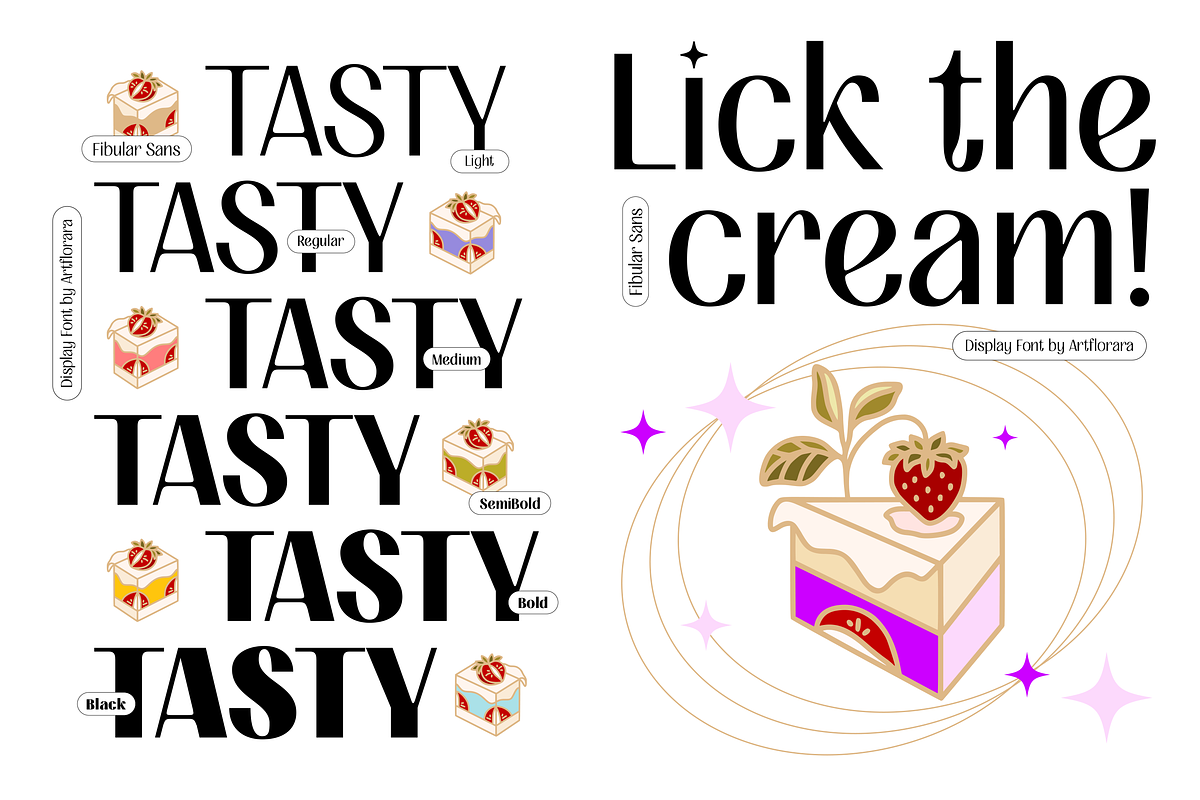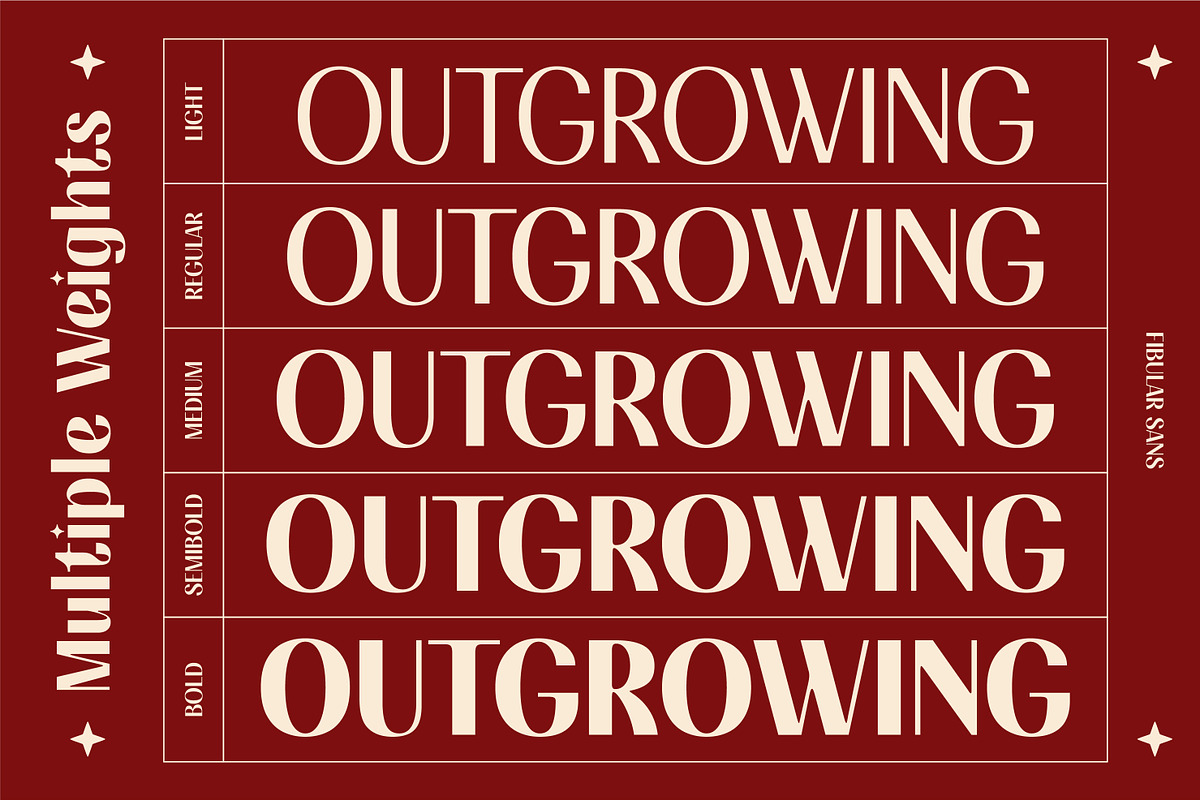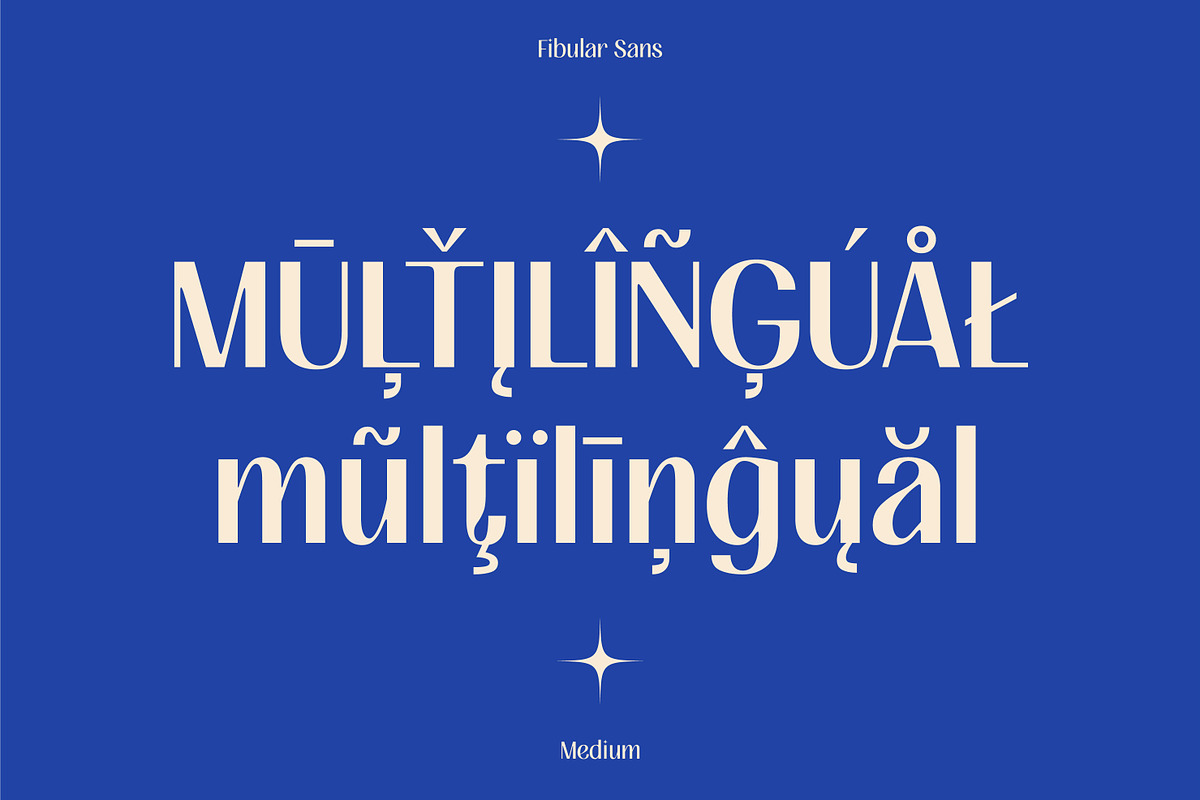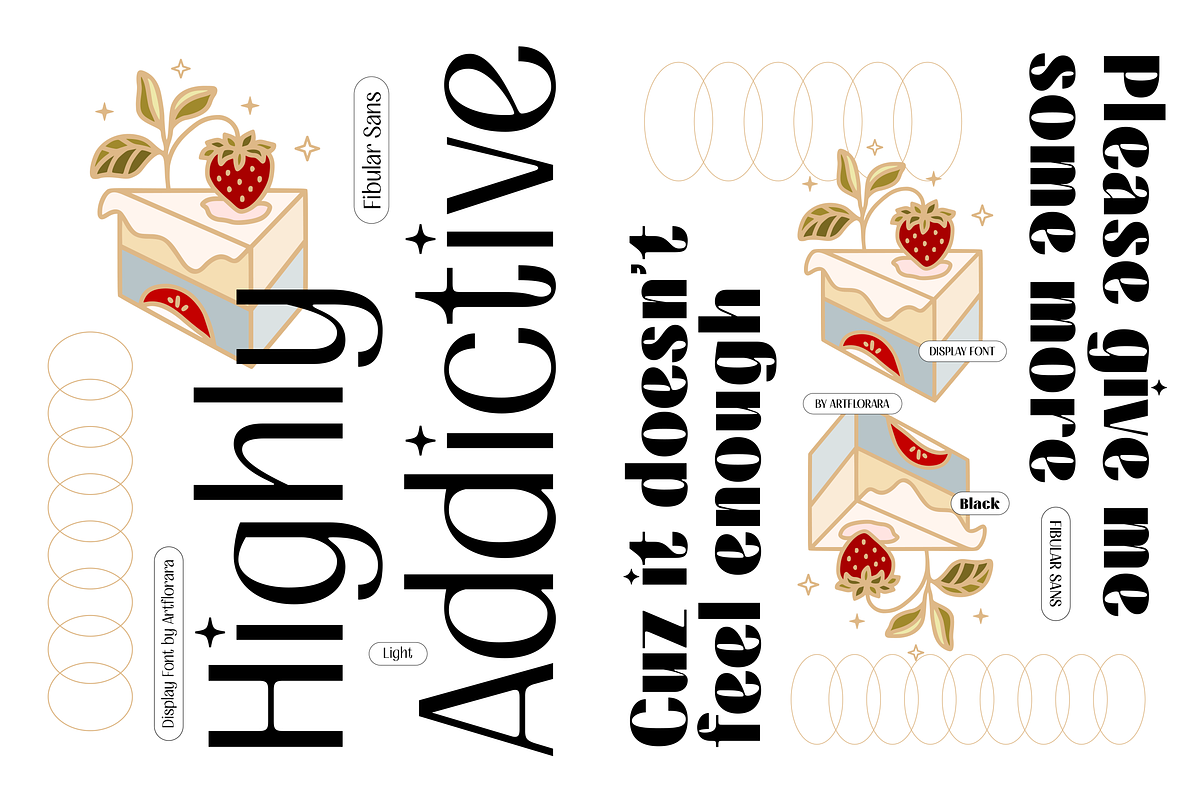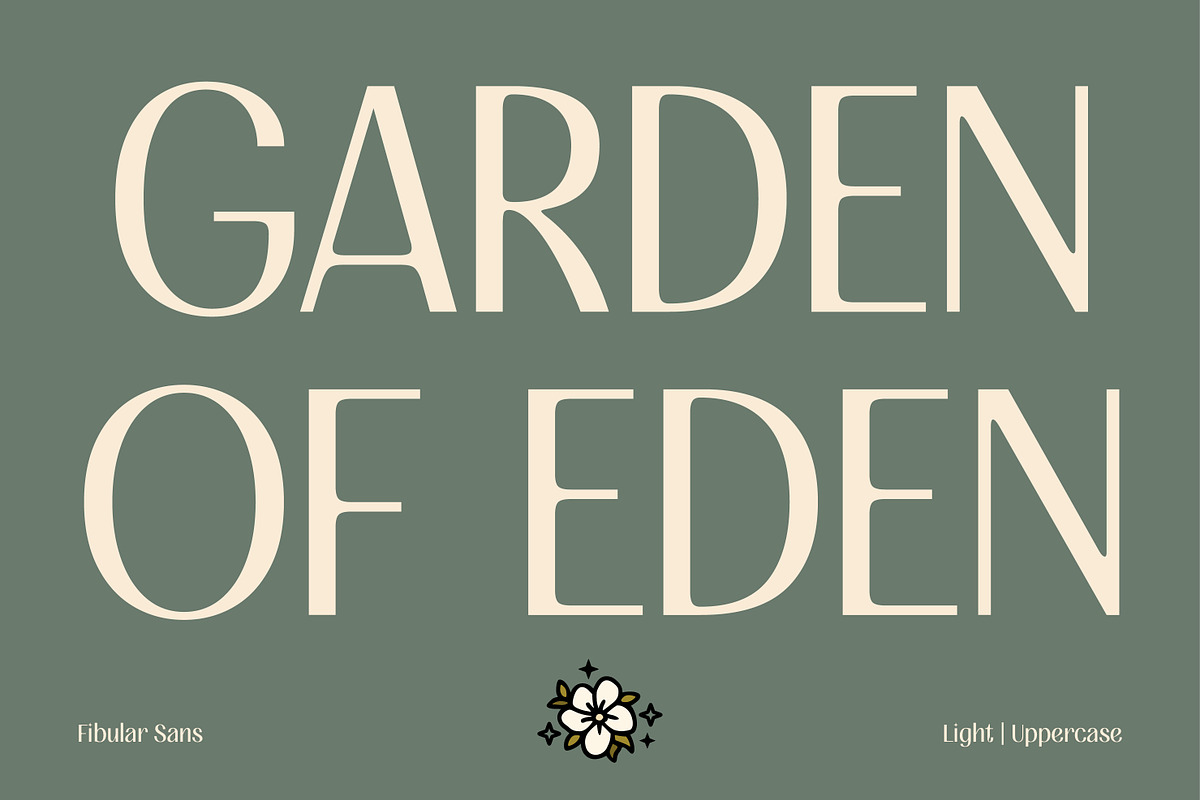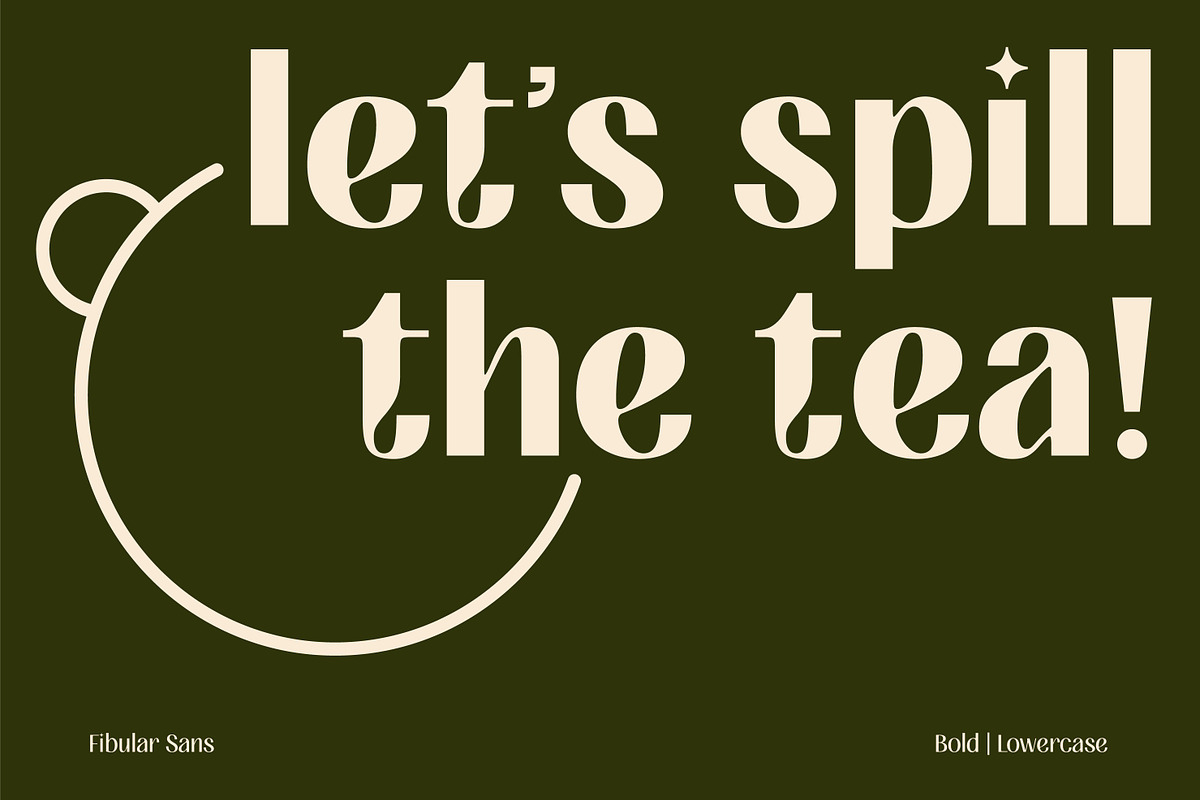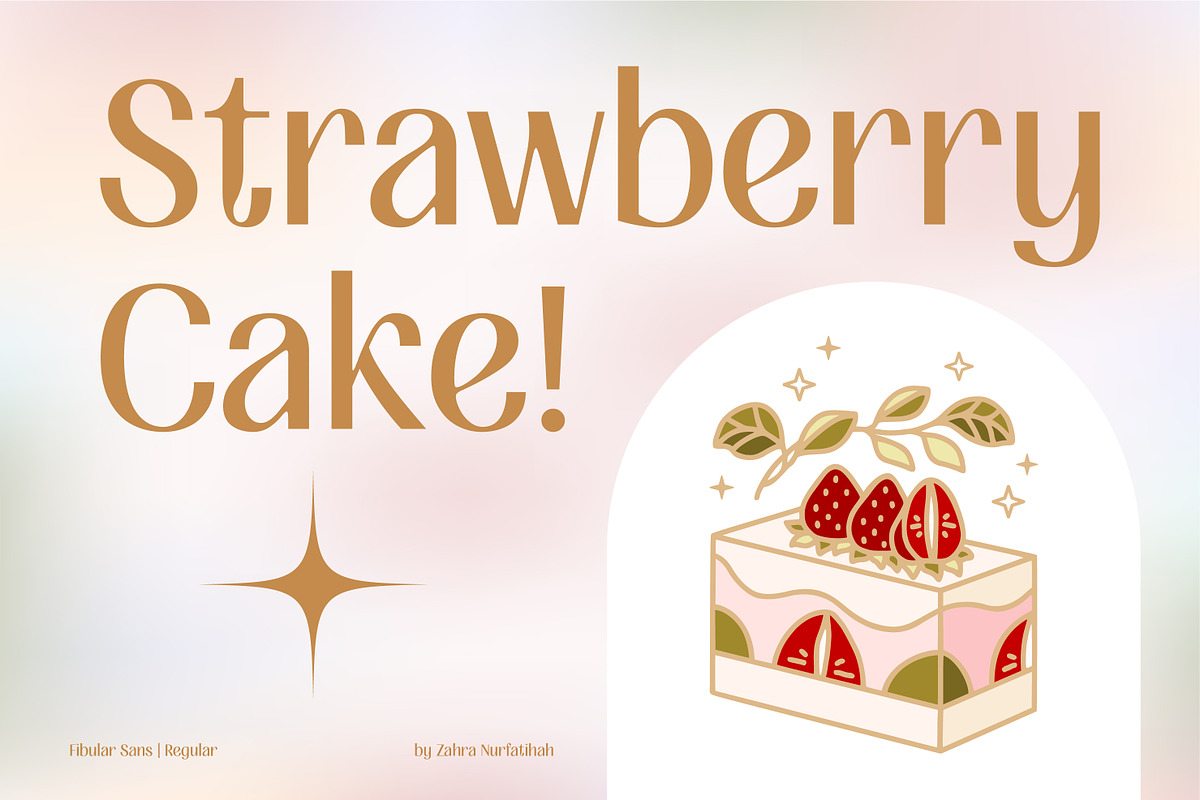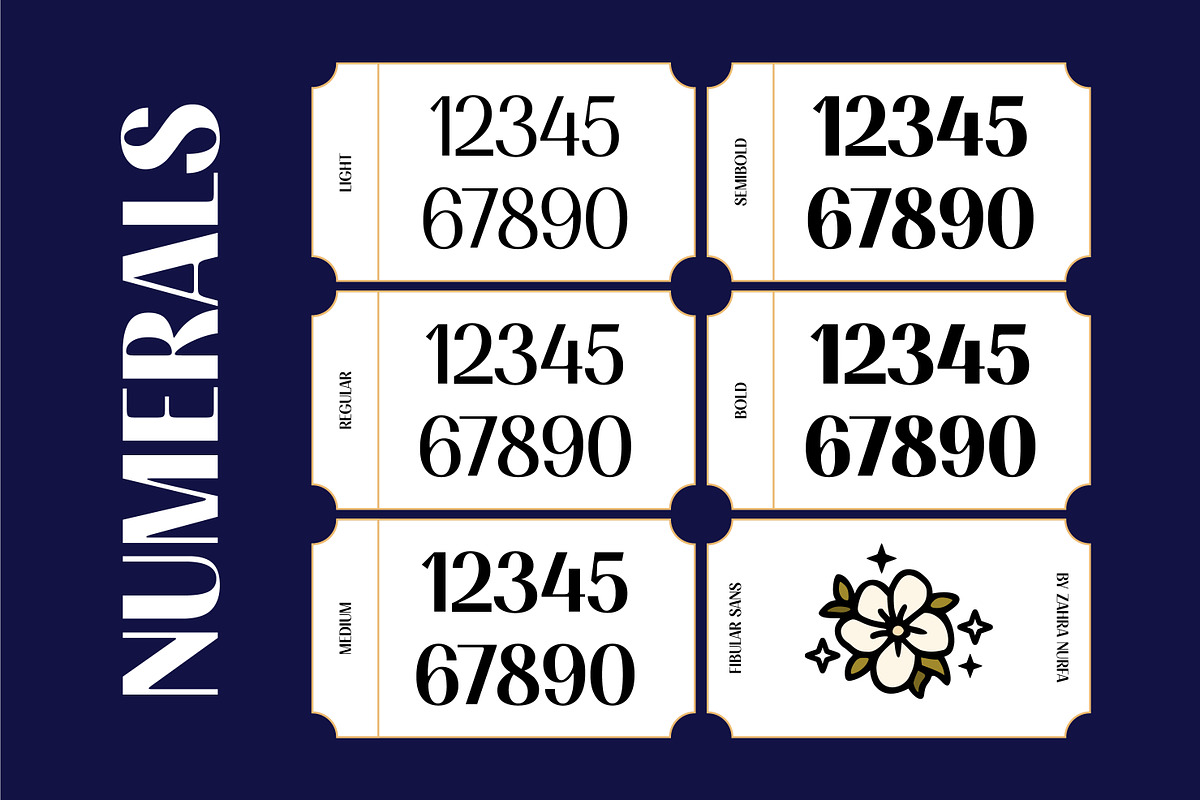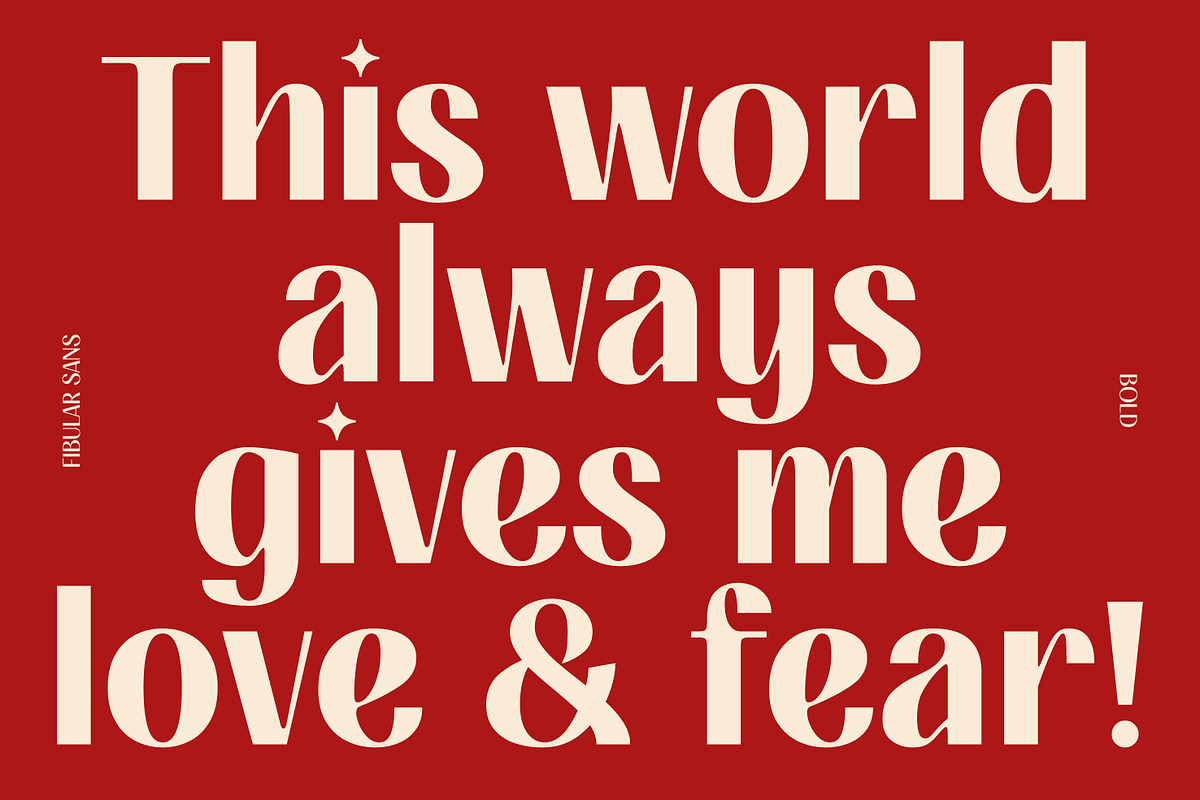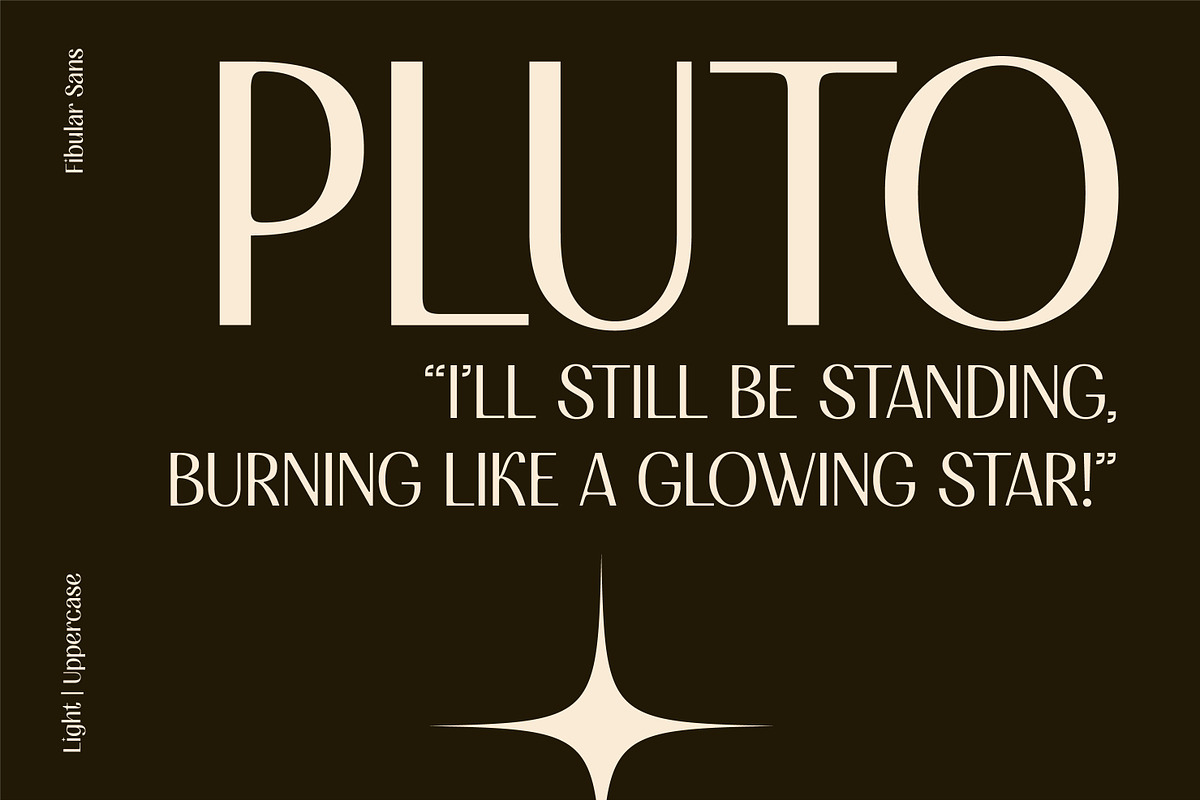
FIBULAR SANS - Variable Display Type
Fibular Sans is a sans-serif display typeface with a versatile and distinctive personality. The proportions exude strength and elegance, inspired by the fibula bone that symbolizes resilience. Perfectly suited for headlines, posters, and bold branding, Fibular Sans commands attention with its shapes and refined details.
What truly sets Fibular Sans apart are its playful touches: star-shaped tittles on the lowercase i and j add a celestial charm, while the unique style within the lowercase f, i, and j creates a captivating twist. Subtle brackets within the characters further elevate its modern sophistication. As a variable font, Fibular Sans offers seamless versatility, allowing you to fine-tune weight and width to suit any creative project. Make a bold yet elegant statement with Fibular Sans!